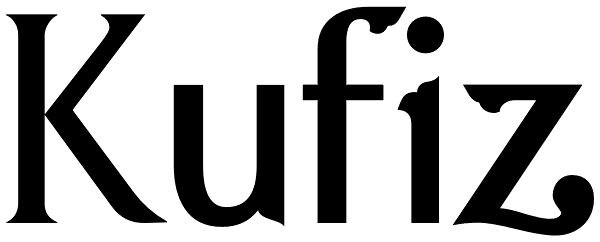
Kufiz
Kufiz which gets influence from the engravings of the Ottoman art and Rumi ornamentations, is an adaptation of the refinement of the period to the modern typography.